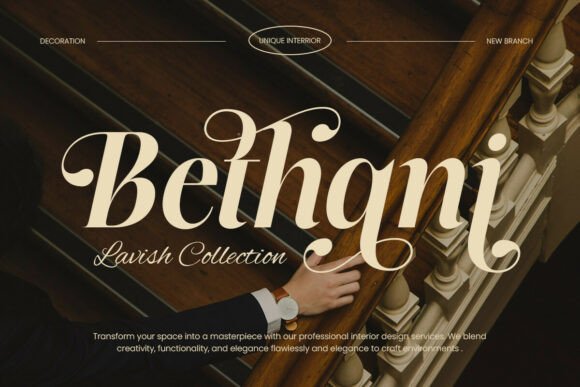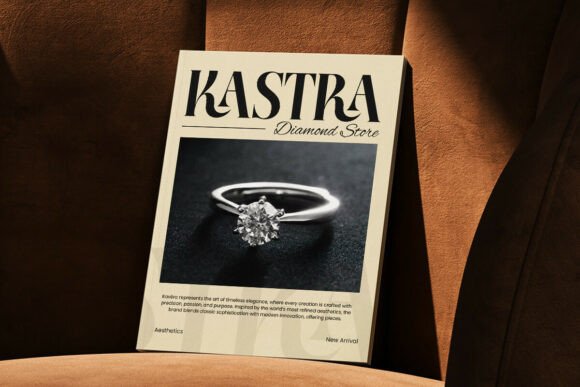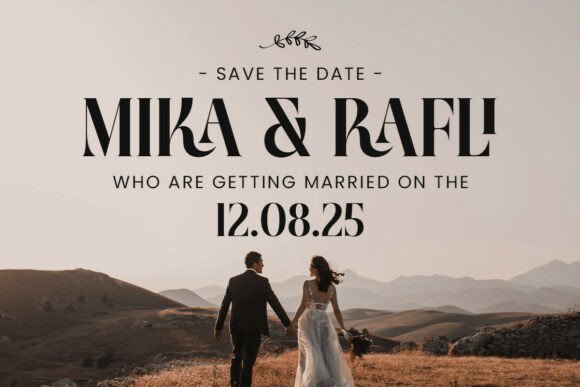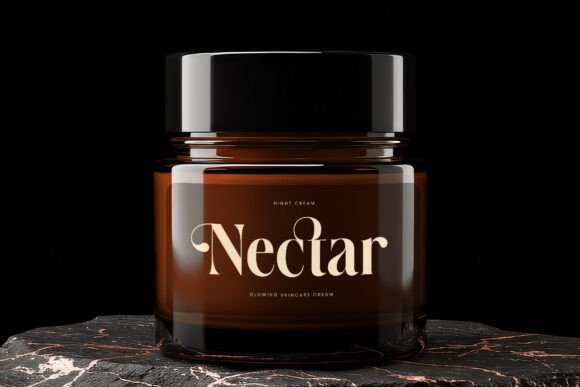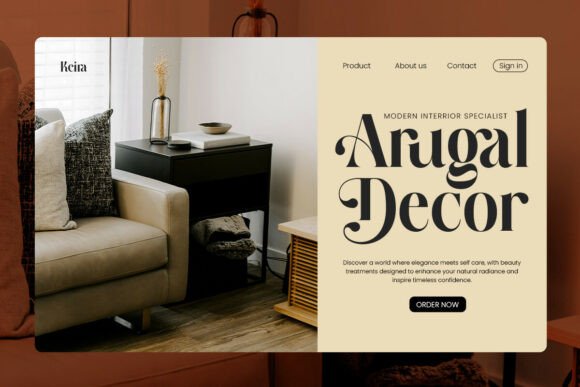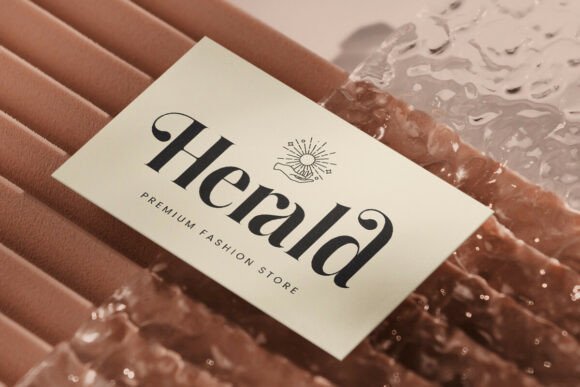
Introduction to Lissandra Claire Font
Lissandra Claire font is a serif typeface designed with a cinematic quality, blending enduring sophistication with a sense of drama.
With sweeping curves, refined ligatures, and timeless structure, itโs perfect for luxury branding, editorial titles, film posters, and premium packaging The font includes Regular and Italic styles, adding depth to typographic storytelling.